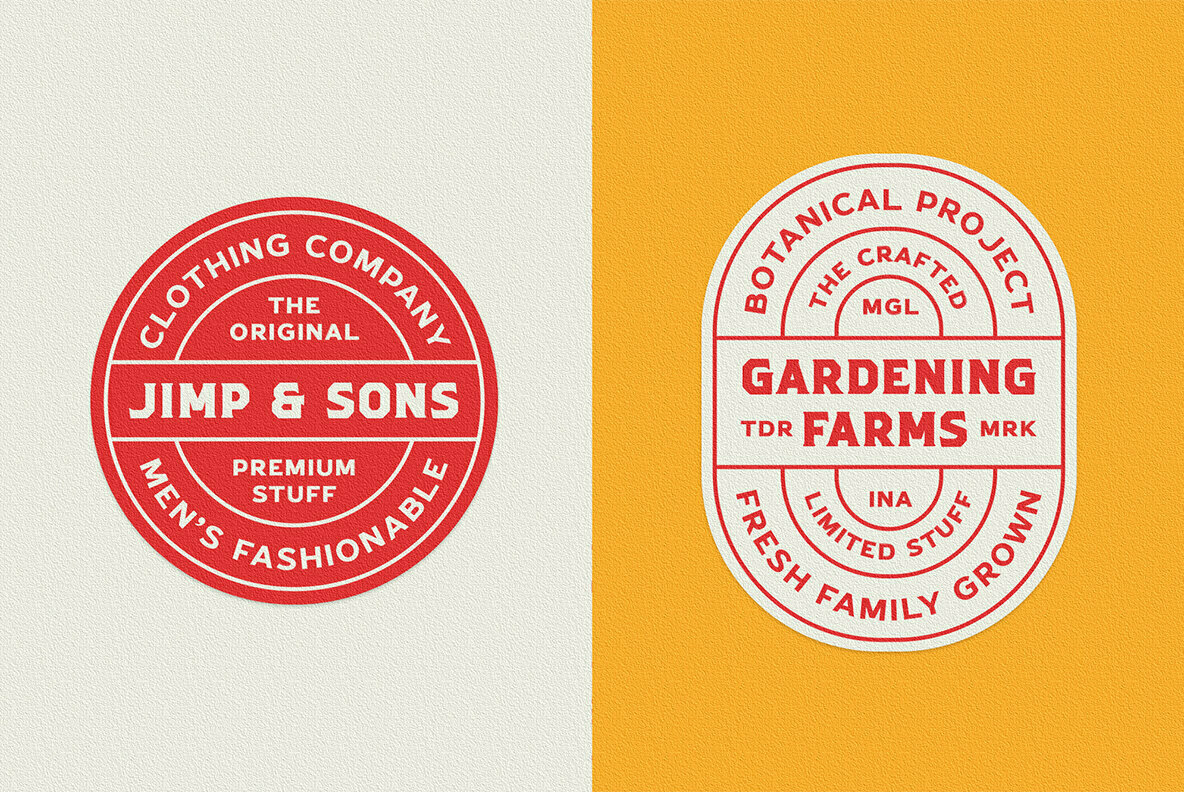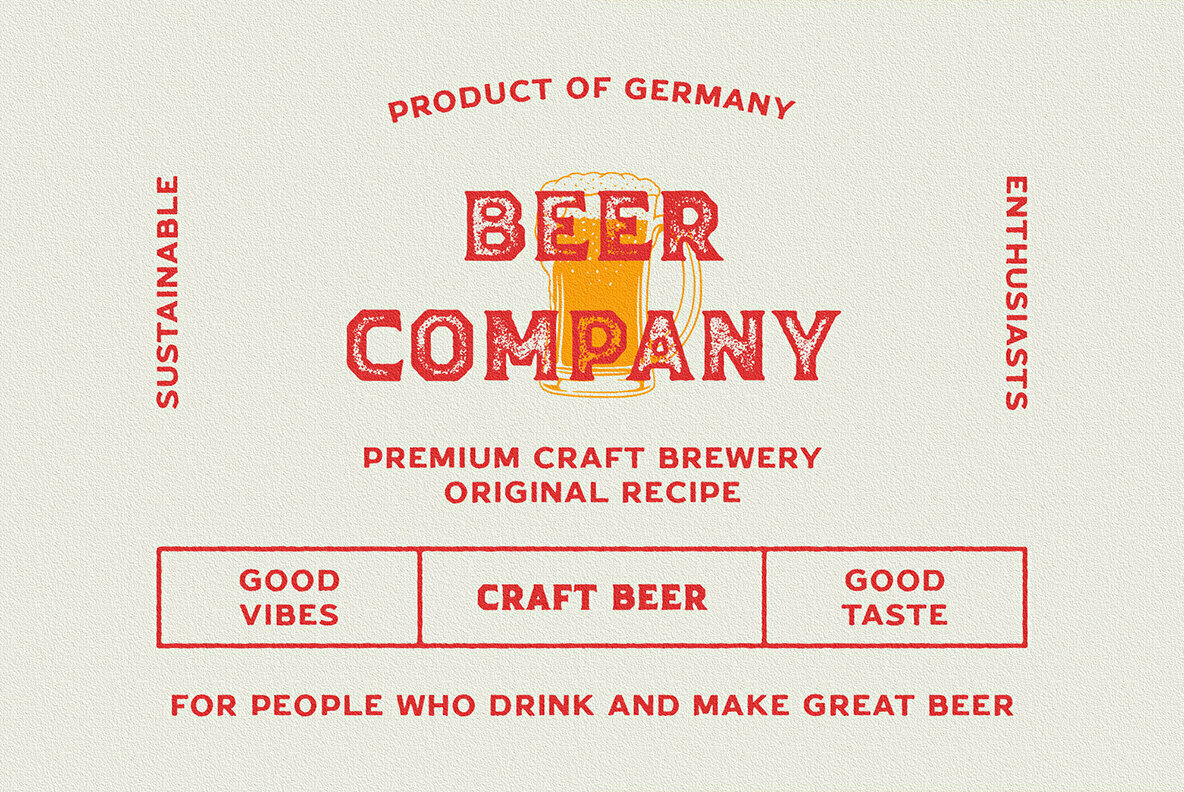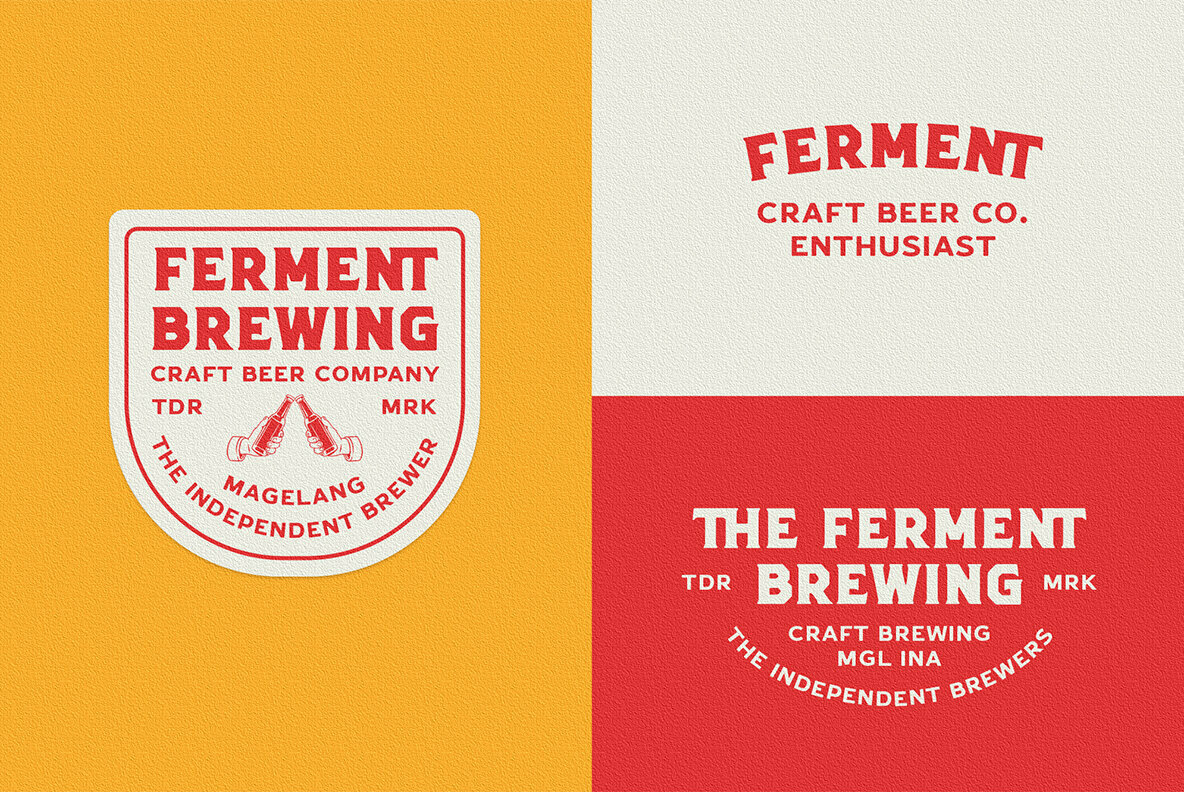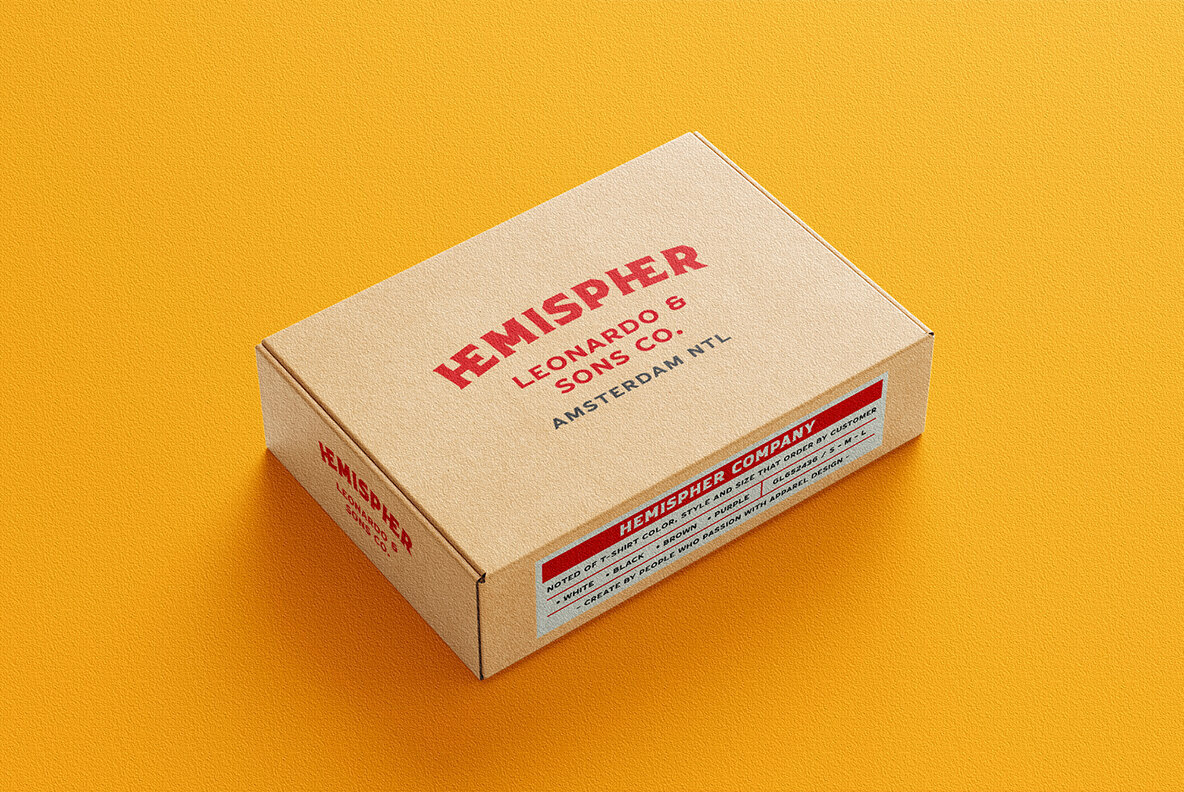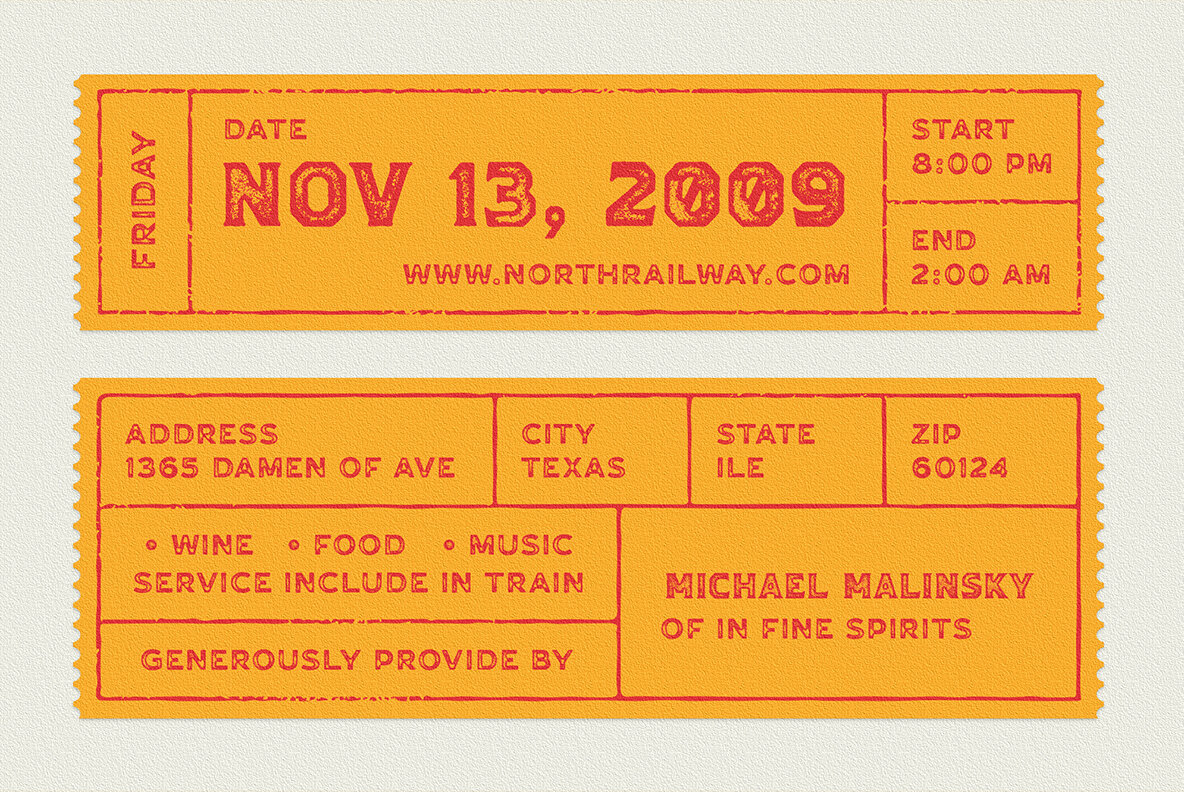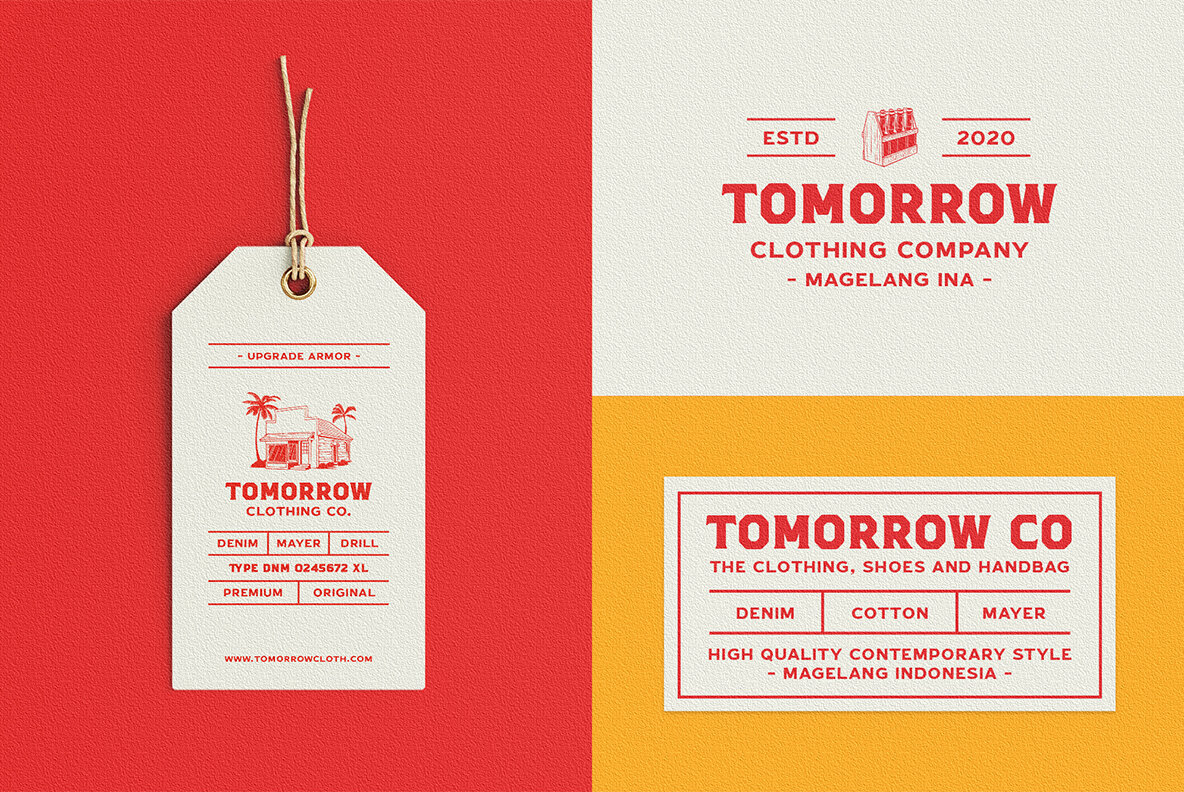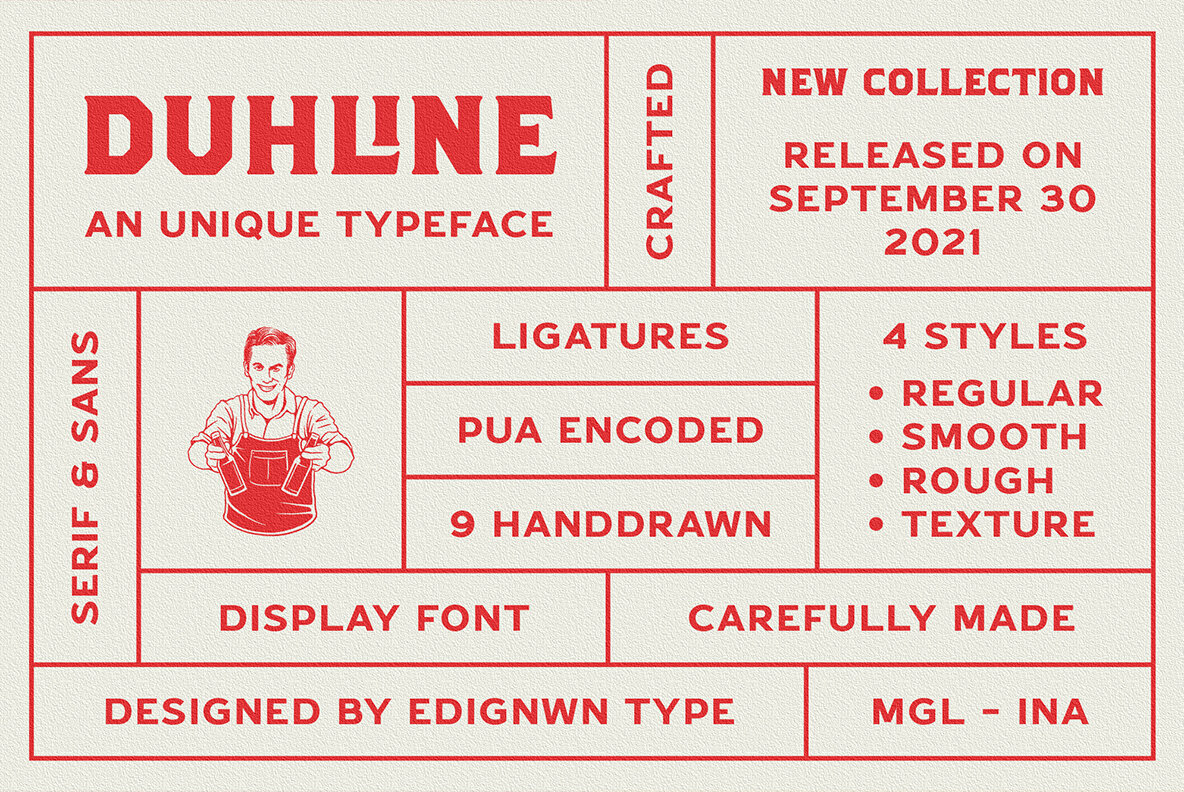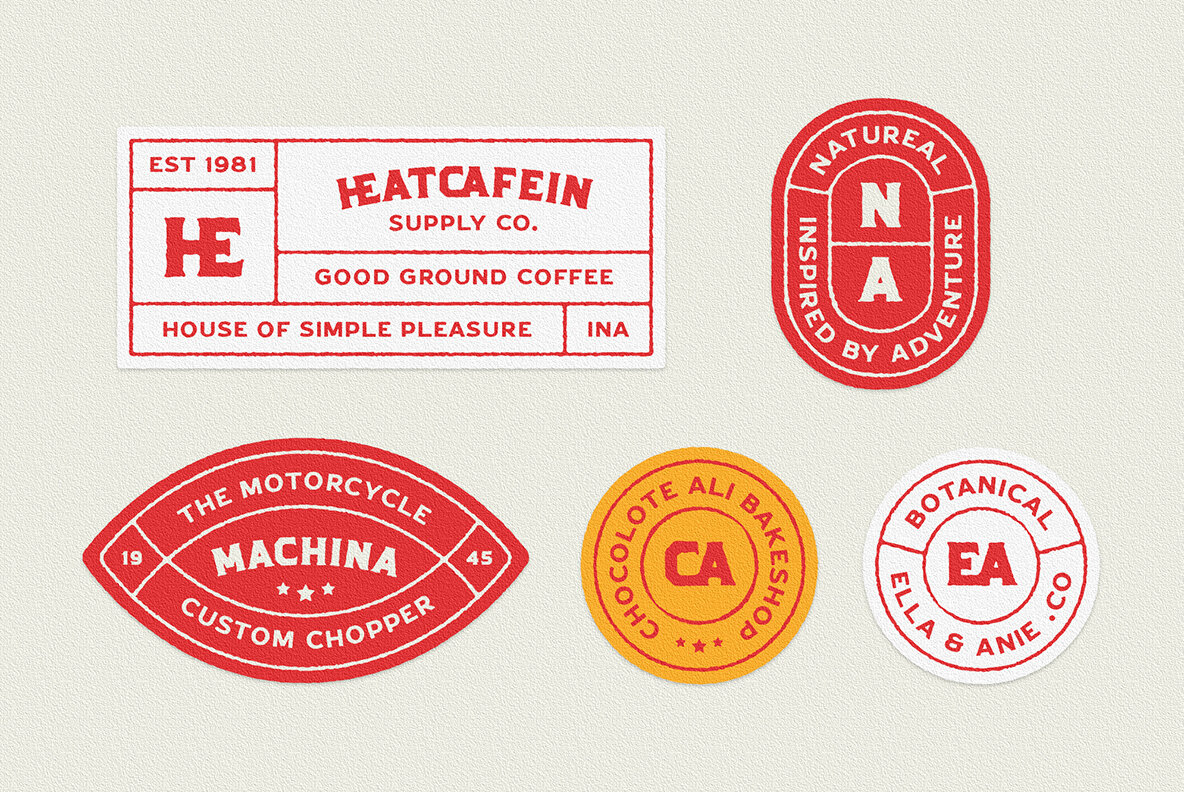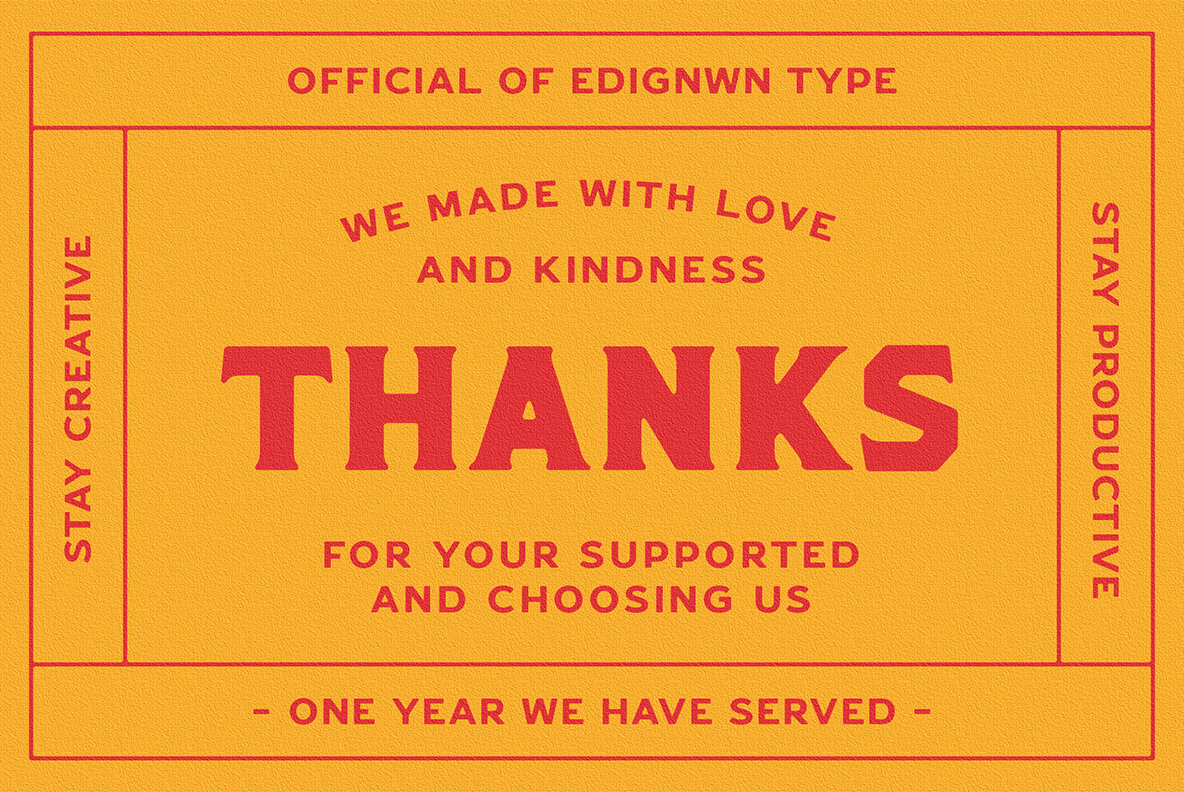
Duhline Font
Duhline emerges as a captivating display font, designed to enhance logotype projects with its dual serif and sans serif options. This collection provides versatility with its four distinct styles: regular, smooth, rough, and texture. The texture style is particularly noteworthy, offering varied stamp effects for uppercase and lowercase letters. Complementing the typeface, Duhline includes nine hand-drawn illustrations themed around beer, perfect for personalized designs. Ideally suited for a wide array of applications, Duhline shines in logo design, posters, labels, badges, packaging, and t-shirt design. Its adaptability makes it a fitting choice for branding, quotable artwork, and custom creations.Duhline: Versatile Display Font for Creative Branding